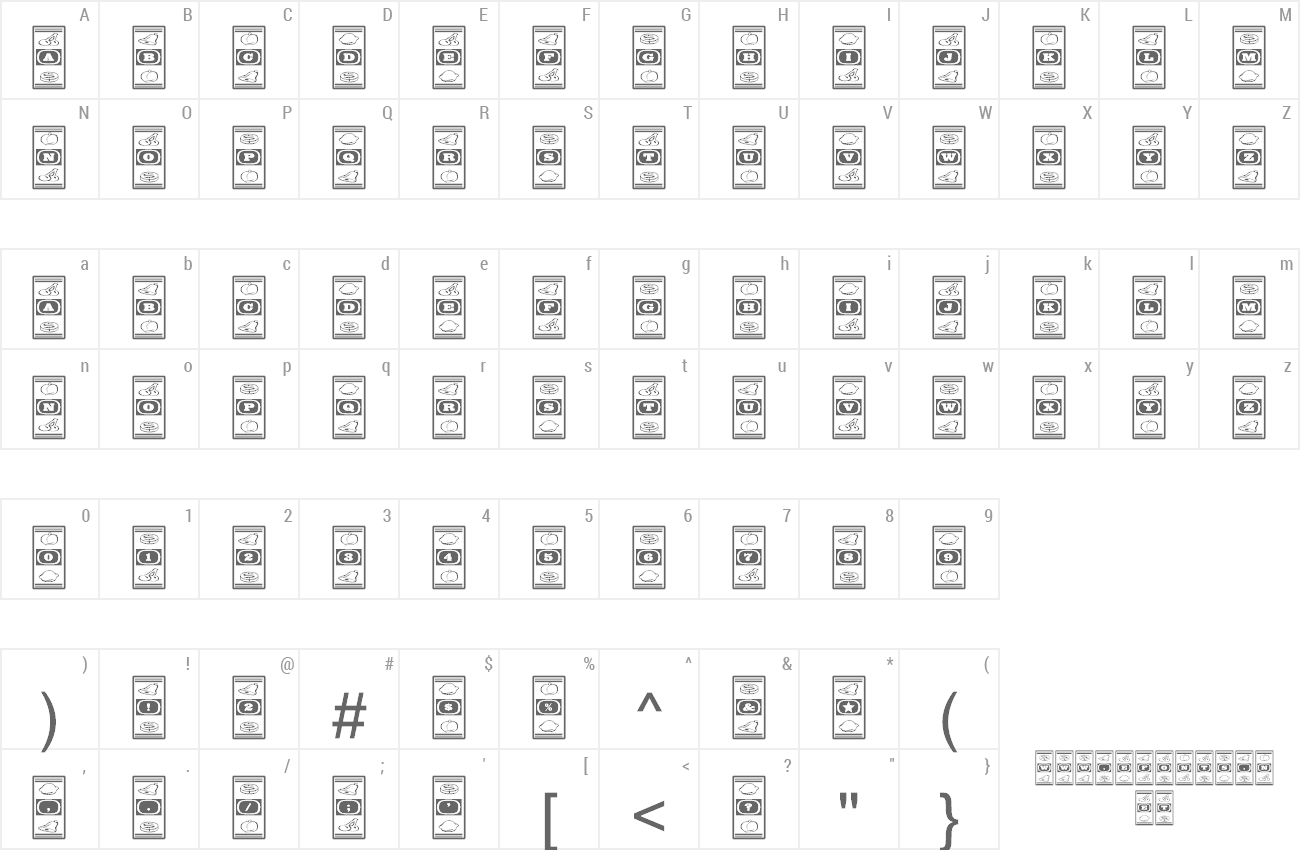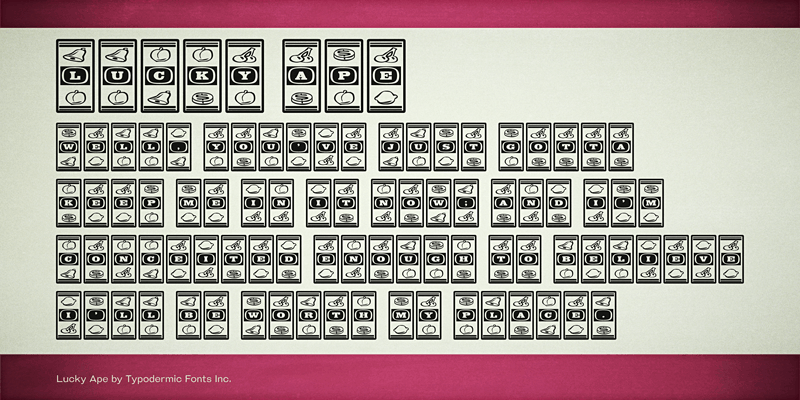
Lucky Ape was inspired by primate gambling. This font includes a license that allows free commercial use: sometimes referred to as a desktop license. This allows you to install the font on a computer and use it to create posters, web graphics, game graphics, t-shirts, videos, signs, logos and more. Read the license agreement for details. If you'd like to embed this font in an app, ebook, on the web or anything that's not covered by the desktop license agreement, visit the link below. You'll find distributors who offer different types of licenses or you can contact me for help. http://typodermicfonts.com/lucky-ape/ |